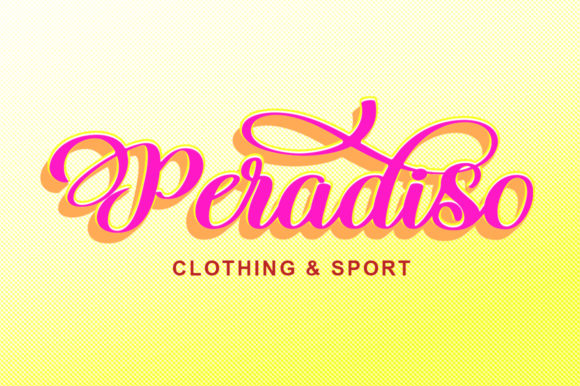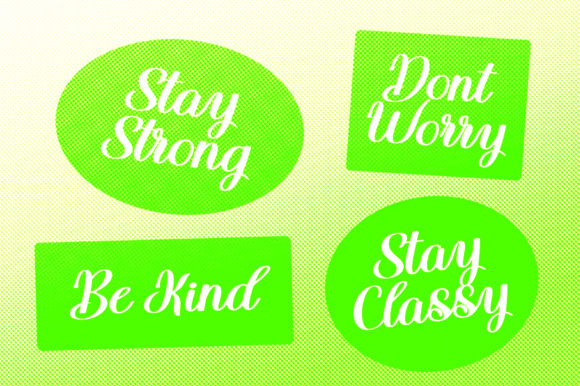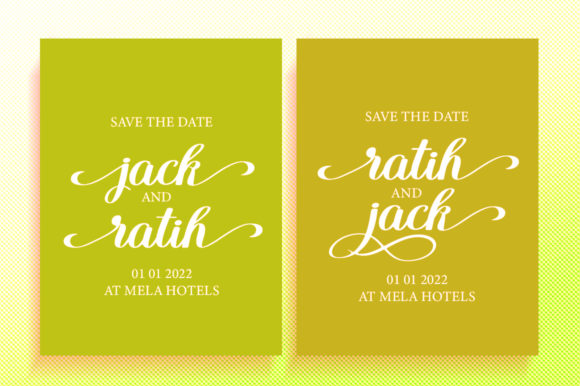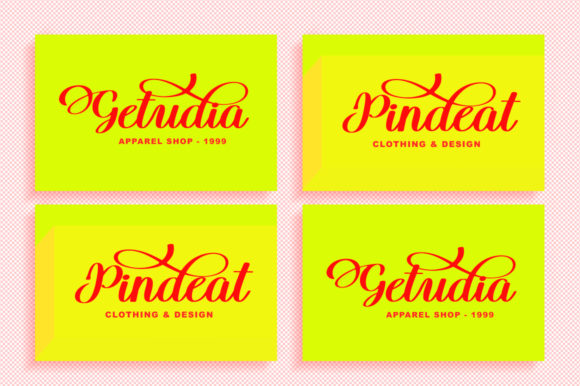
About Belsani Font
Belsani is a gorgeous and bold handwritten font, crafted to give your headlines and logotype projects a stylish touch. This font reads as strong, confident, and dynamic and can add tons of nostalgic character to your designs.